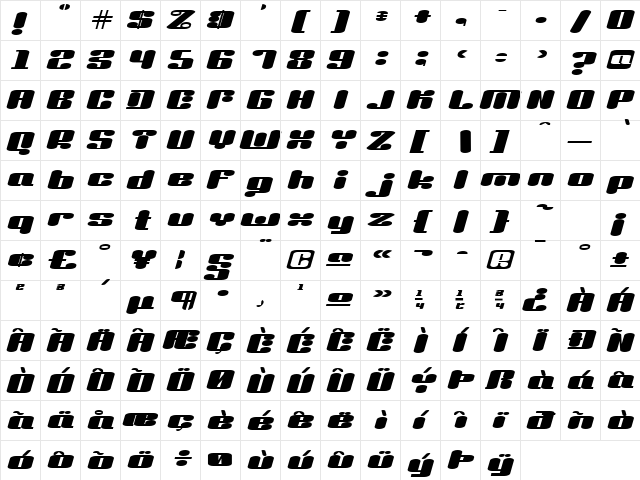
Liquid Sex Italic Regular
Design Context for Liquid Sex Italic Typeface
Liquid Sex Italic is a composed and adaptable typeface that performs quietly and consistently across a wide range of design contexts. The dynamic lean of this cut emphasises speed and emphasis in any layout.
Pro Tip: Try Liquid Sex Italic for annotation and caption copy alongside an upright companion — the contrast in angle creates a dynamic but ordered typographic system.